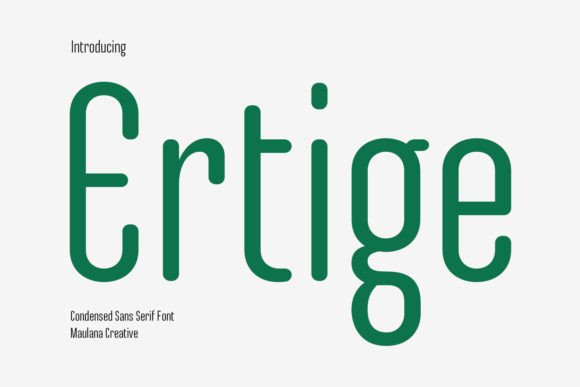
Step into the world of exquisite typography with Ertige, a meticulously crafted sans-serif font that exudes elegance and modernity. Immerse yourself in the world of vintage charm, where nostalgia intertwines with innovation. Ertige's condensed structure and modern appeal are redefining aesthetics, adding a touch of sophistication to your creative pursuits. Whether you're a designer seeking a captivating identity for your brand or a digital artist seeking to weave tales through captivating visuals, Ertige is your muse.
With its clean lines and compact spacing, Ertige is the maestro of clarity and readability. Experience the effortless flow of words as they dance across the screen or printed page, captivating your audience with their grace and precision. Every curve and angle of Ertige has been meticulously refined, ensuring visual harmony and a seamless reading experience.
Unleash your creativity and let Ertige guide you through the realm of branding, editorial design, and any endeavor that demands a contemporary touch. Its versatility knows no bounds, allowing you to breathe life into logos, posters, brochures, social media graphics, and more. With Ertige as your creative companion, your designs will transcend the ordinary and leave a lasting impression.
But Ertige's allure extends beyond its aesthetic brilliance. It's a font imbued with emotional resonance, evoking a sense of nostalgia and longing for a bygone era. Its vintage charm adds a touch of warmth and familiarity to your creations, transporting viewers to a time of timeless elegance. Let Ertige be the bridge between the past and the present, blending the best of both worlds to create truly captivating experiences.
Dive into the depths of Ertige's character set and discover a treasure trove of glyphs and swashes, accessible with effortless ease thanks to PUA encoding. These enchanting elements add an extra layer of intrigue and personality to your designs, allowing you to create truly unique and memorable compositions that will set your work apart from the mundane.
With Ertige as your creative ally, you hold the power to transform the ordinary into the extraordinary. Its carefully crafted curves and angles will weave a captivating narrative, leaving your audience enthralled and eager for more. Embrace the timeless beauty of vintage design and let Ertige elevate your creative vision to new heights. Embrace the legacy of Ertige and redefine the art of typography.